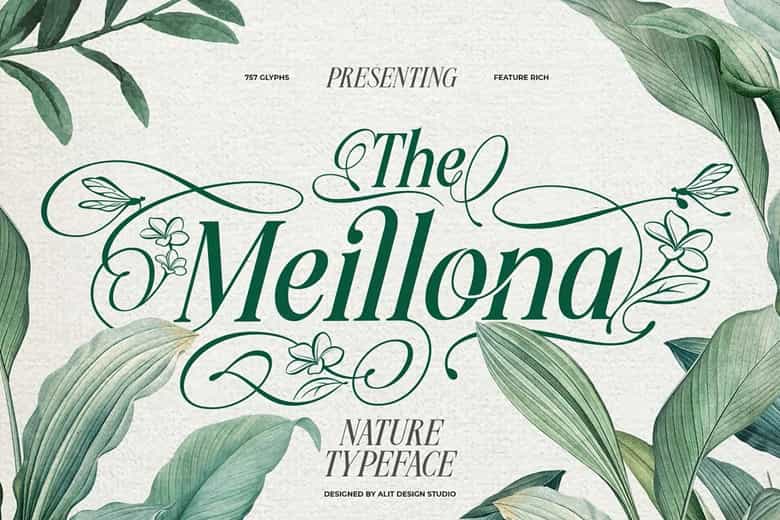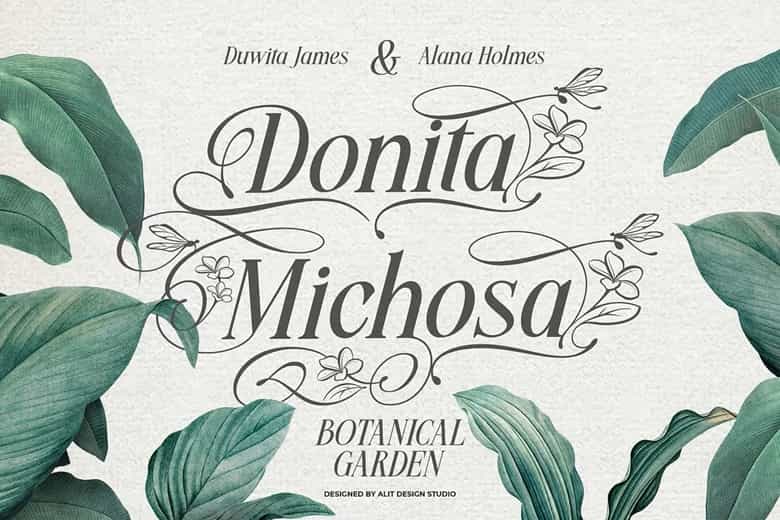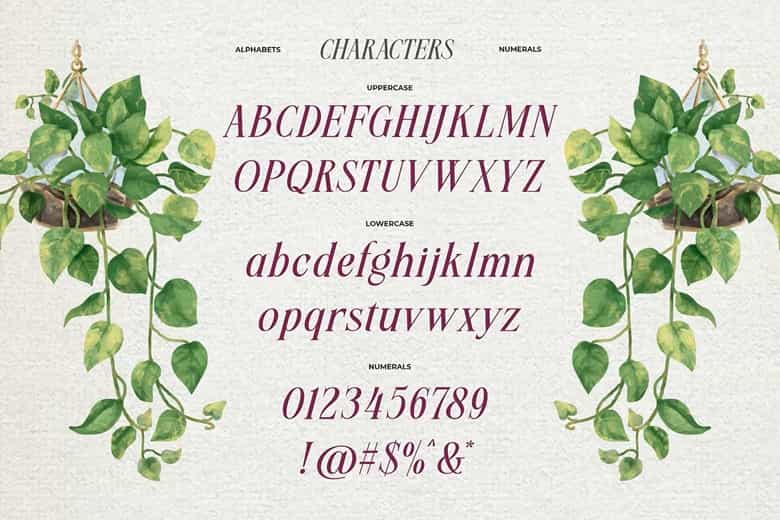
Discover Meillona Font, part of the Serif collection—a versatile and unique font perfect for adding a personal touch to your projects. Download it for free and enjoy crafting designs with style, from invitations to social media posts. This font is available exclusively for personal use, giving you the freedom to create without limits. Unlock your creativity with Meillona Font today!
Meillona is designed in a sophisticated, natural way. The flowing quality of its letterforms, its old serif design, and the way that it is unique with elements of nature, add up to make it a design that will never go out of style. The typeface has been created to provide your creative project with the feel of natural beauty and romance.